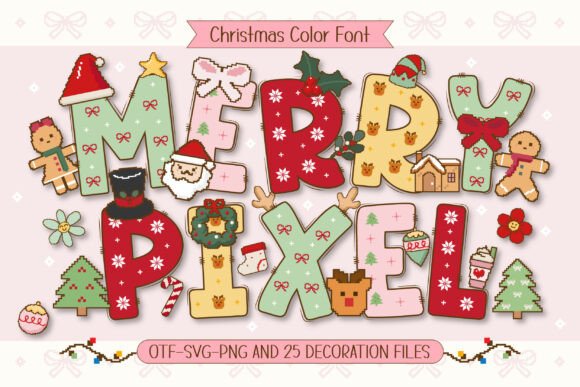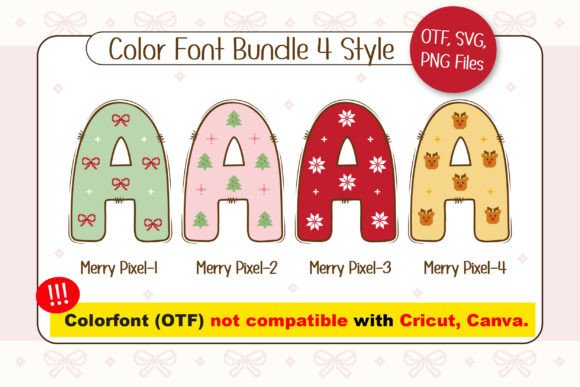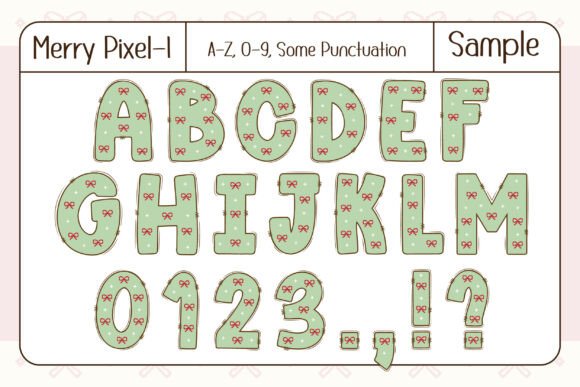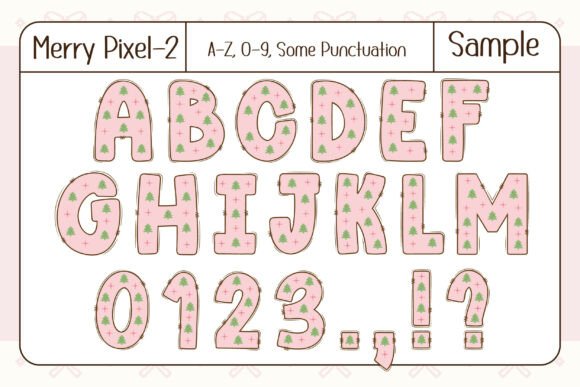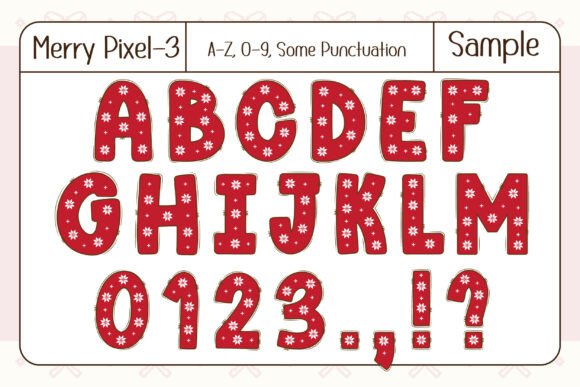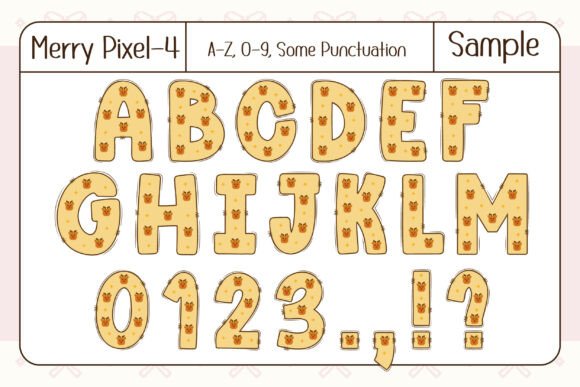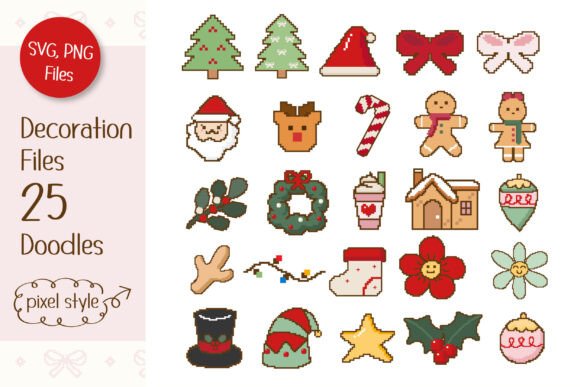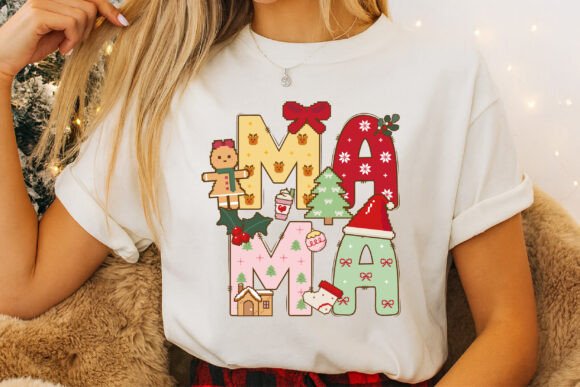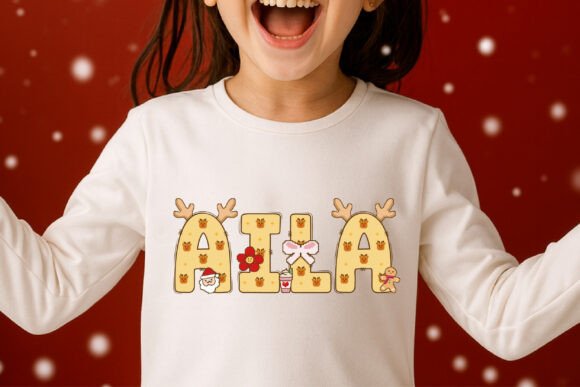
Merry Pixel Font
Introducing “Merry Pixel” — a festive color font that combines the joyful spirit of Christmas with a fun and nostalgic pixel-style design. Adorned with cute Christmas patterns and playful doodles, this font adds a cheerful retro-gaming twist to your holiday projects.
Featuring 4 color font styles and 25 pixel-style matching doodles, “Merry Pixel” is perfect for creating Christmas posters, quotes, t-shirts, banners, party invitations, stickers, scrapbook pages, DIY crafts, custom names, and so much more. Bring a merry pixelated charm to your festive creations!